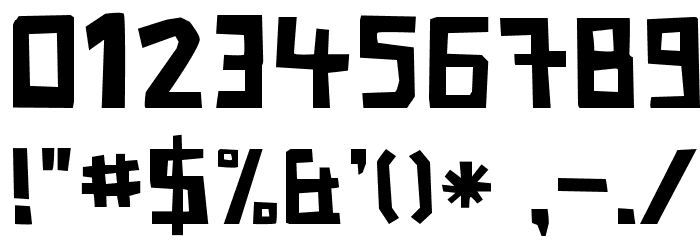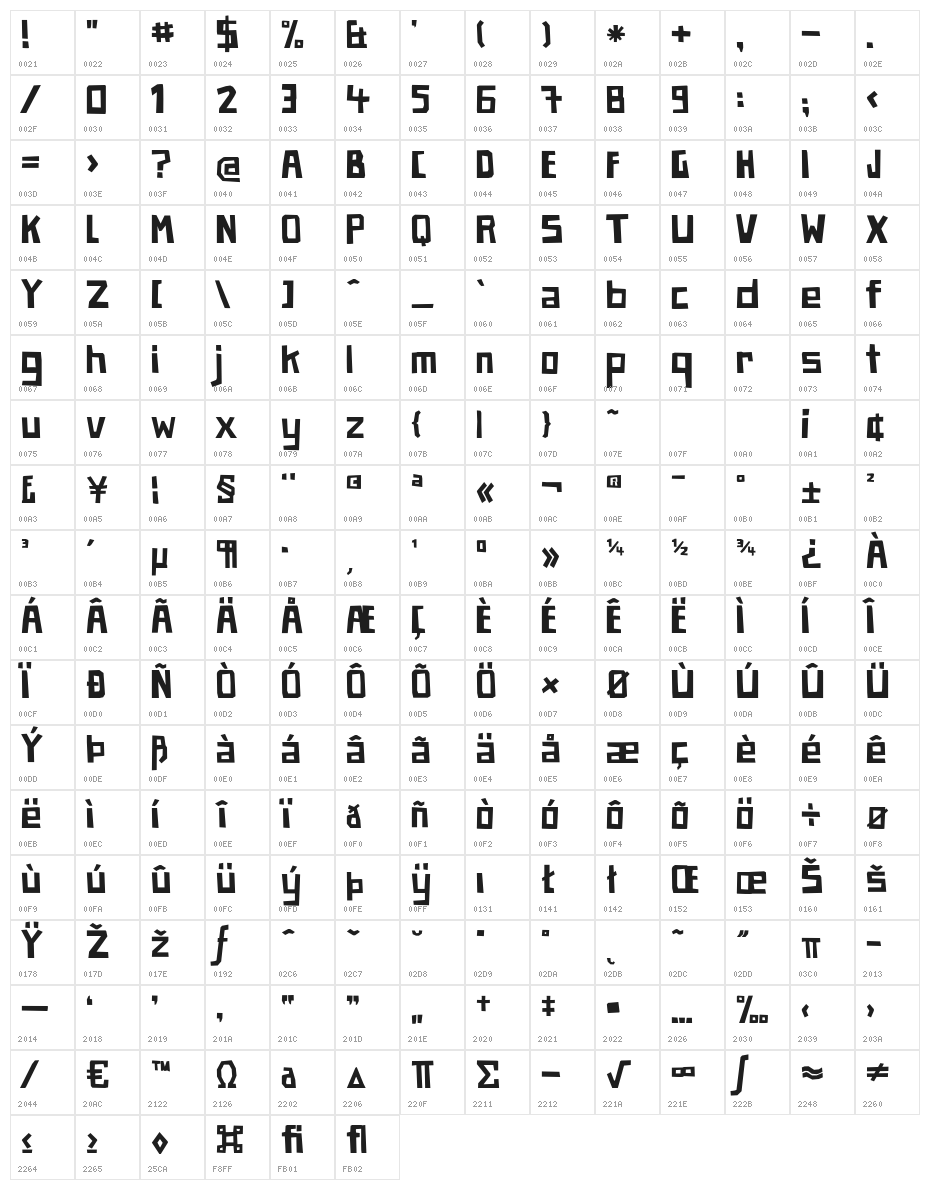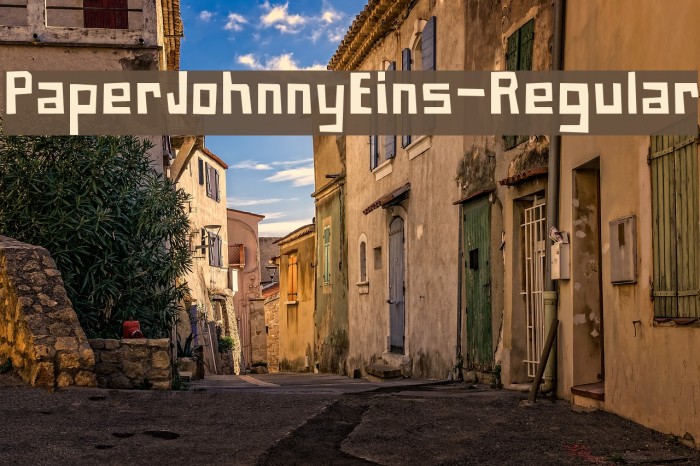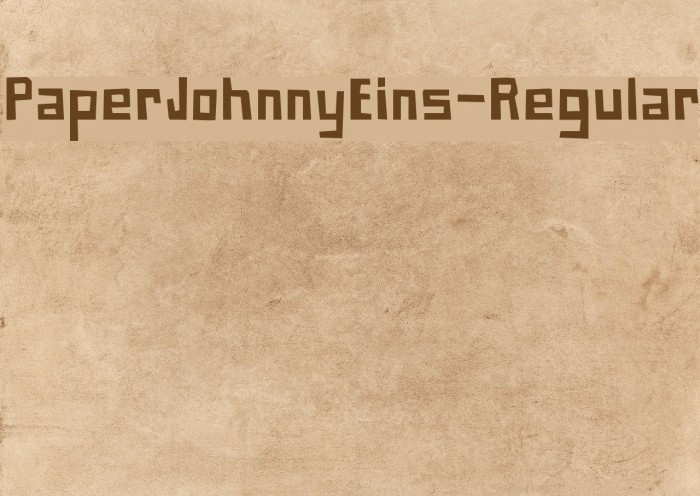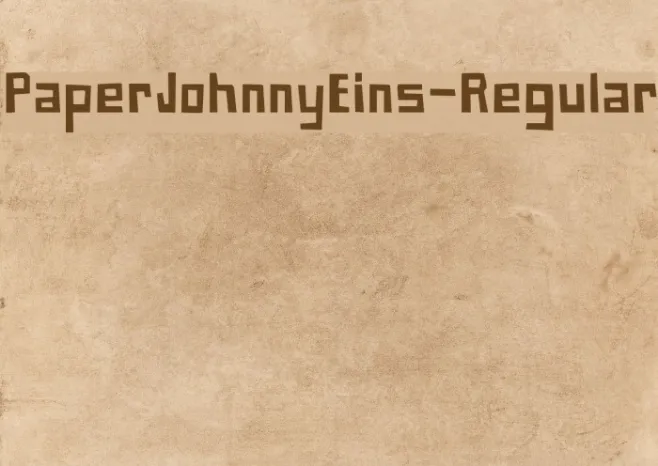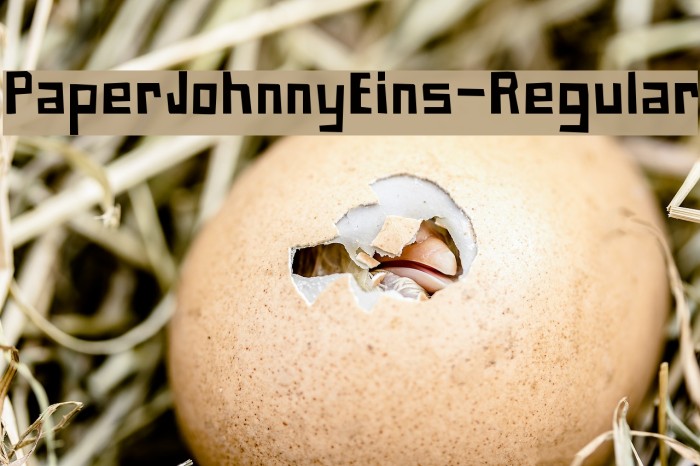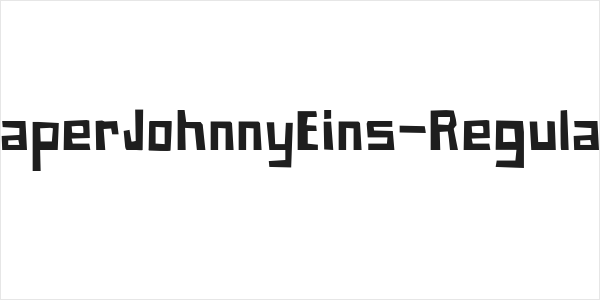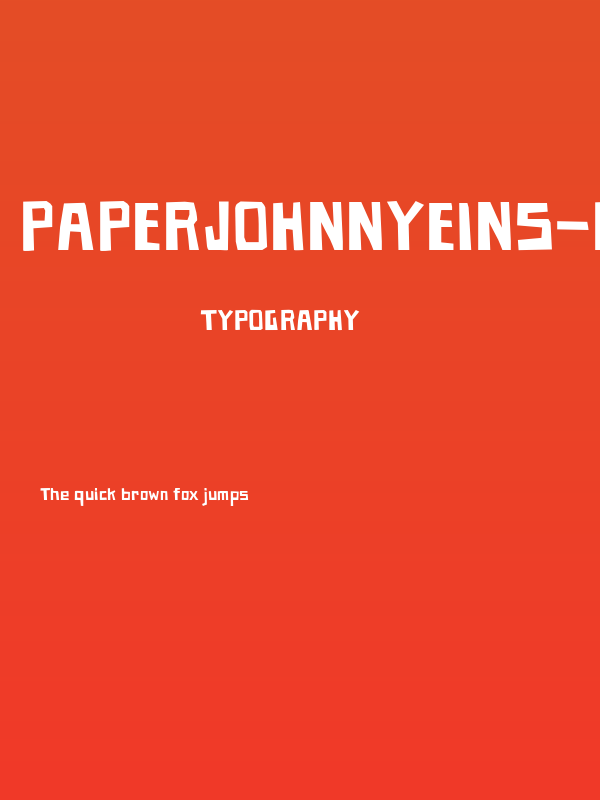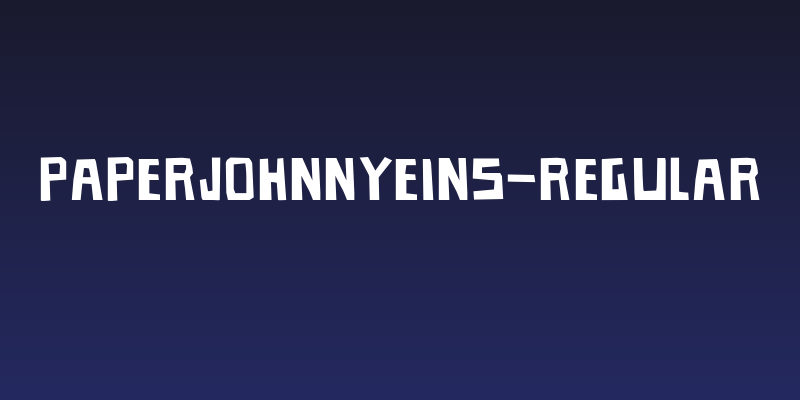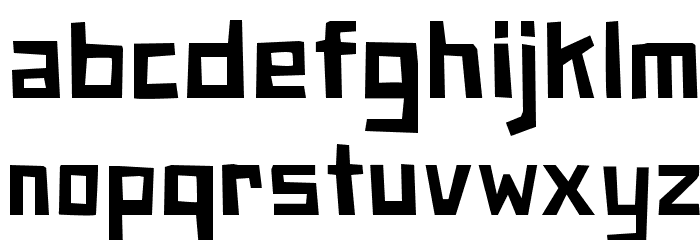
PaperJohnnyEins-Regular Font
PaperJohnnyEins-Regular Description
This font exhibits a bold and playful style with a distinctly irregular and hand-crafted appearance. The characters are angular and slightly uneven, giving it a quirky and dynamic feel. The uppercase letters are particularly striking, with their bold presence and unique shapes. The lowercase letters maintain the same playful aesthetic, complementing the uppercase set. Numbers and special characters follow the same design principles, ensuring consistency across the font. The overall look is reminiscent of cut-out paper shapes, adding a touch of whimsy and creativity. This font is ideal for projects that require a fun and informal touch, such as children's books, playful branding, or creative posters.
| Overall Style | Playful, Creative, Quirky |
| Proposed Projects | Ideal for children's books, playful branding, creative posters, and informal designs. |